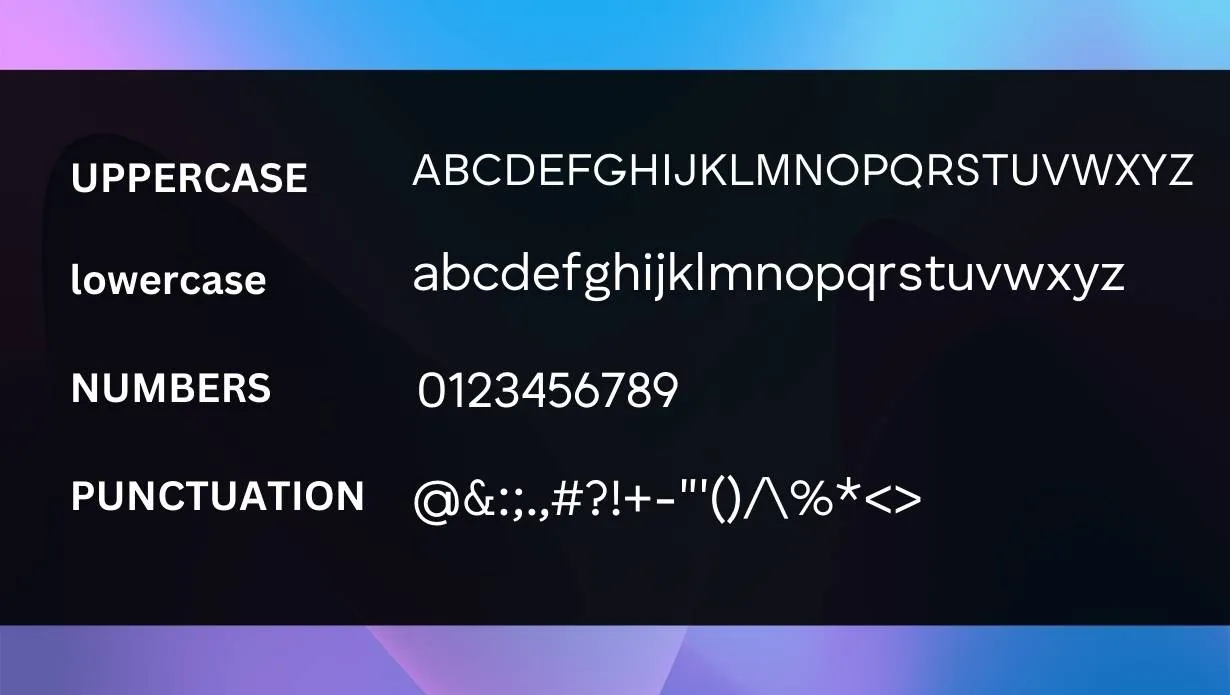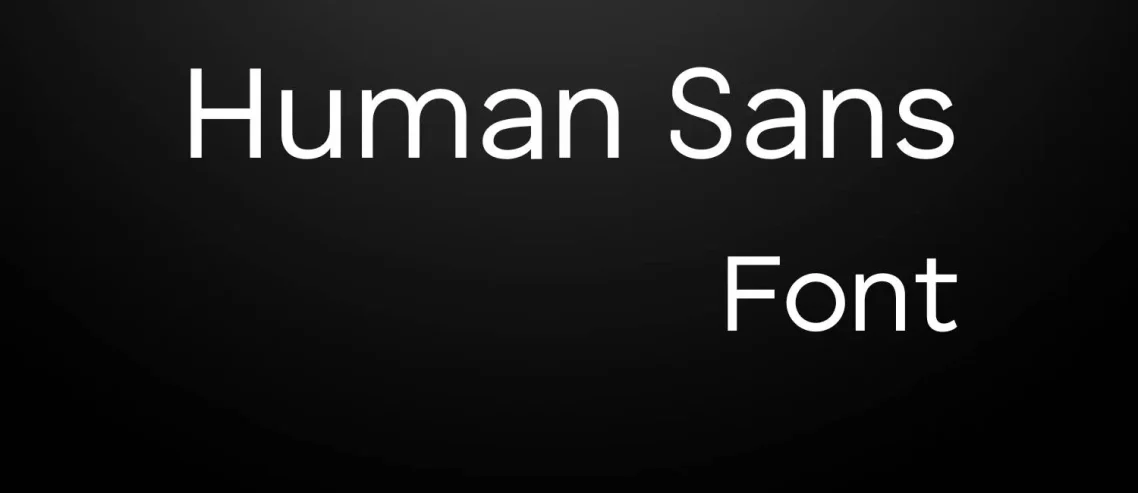
Human Sans Font is a Sans-Serif font that is designed by the famous font designer Tim Radville. Due to its glyphs and texture, this font has gained popularity in the font industry.
View of Human Sans Font
Human Sans Font Info
| Name | Human Sans font |
| Designer | Tim Radville |
| Style | Sans-serif |
- Human Sans Regular
- Human Sans Thin
- Human Sans Bold
- Human Sans Light
- Human Sans Medium
- Human Sans Extra Light
- Human Sans Black